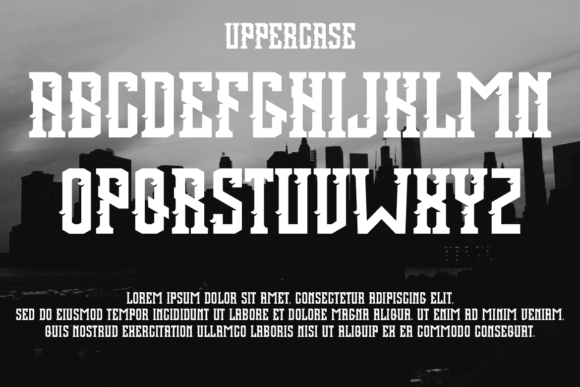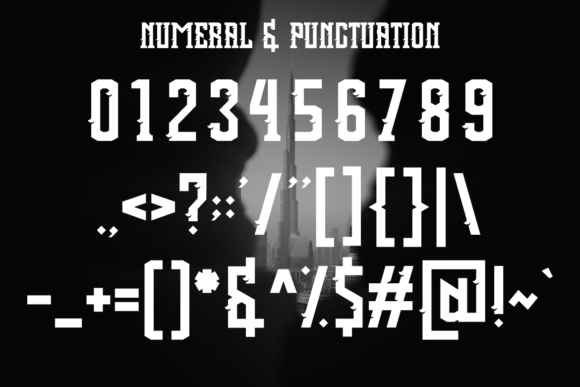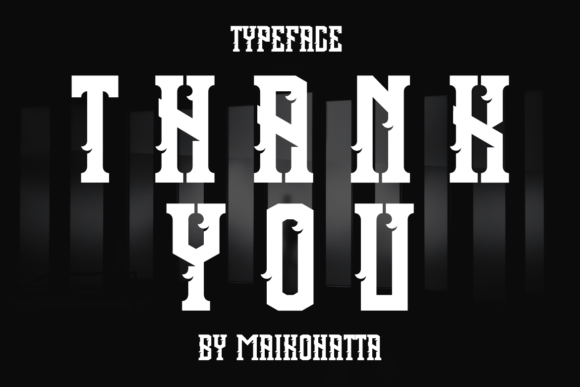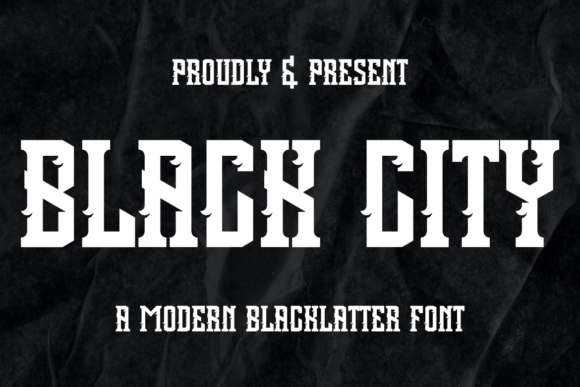
Step into the Dark Side of Design with Black City Font
Have you ever been browsing through a thrift store or an antique shop, and you stumble upon an old, mysterious-looking sign or a vintage poster that instantly sparks your creativity? That’s exactly what happened to many designers when they first laid eyes on the Black City Font. This modern blackletter font is a masterclass in dark, edgy design, perfect for those who want to add a touch of horror metal to their projects.
As a designer, you’re always on the lookout for unique and versatile fonts that can elevate your work. That’s where the Black City Font comes in – a highly detailed and distinctive font that’s perfect for retro-urban designs, tattoo business branding, logos, and vintage designs. Its value lies in its ability to add a sense of mystery and rebellion to any project, making it a must-have for designers who want to stand out from the crowd.
Black City Font Key Features
- Unique Characteristic: The Black City Font features a unique blend of modern and industrial elements, with geometric shapes and sharp lines, making it ideal for urban and edgy designs.
- Font Pairing: The font’s versatility allows it to pair well with a variety of font styles, from sans-serif to serif fonts, making it an excellent choice for creative and innovative designs.
Designer Review: Black City Font
Overall, I was quite impressed with the Black City Font. It’s a great addition to any modern design project. Here are a few things that work well:
- ✨ Unique and edgy aesthetic: The font has a distinct, urban feel that sets it apart from more traditional fonts.
- ✨ Versatile: It works well in a variety of contexts, from headlines and titles to body text and logos.
- ✨ Highly customizable: The font offers a range of weights and styles, making it easy to adapt to different design needs.
- ⚠️ Limited language support: The font may not include the necessary glyphs for certain languages, which could limit its use in global design projects.
- ⚠️ May not be suitable for fine text: The font’s bold, condensed style may not be ideal for large blocks of text, where readability could be compromised.
Overall, I think the Black City Font is a solid choice for designers looking for a modern, edgy look. While it may have some limitations, its unique aesthetic and versatility make it a valuable addition to any design toolkit.
Black City Font is ideal for:
- Edgy, urban designs
- Bold, eye-catching headlines
- Sophisticated presentations and documents